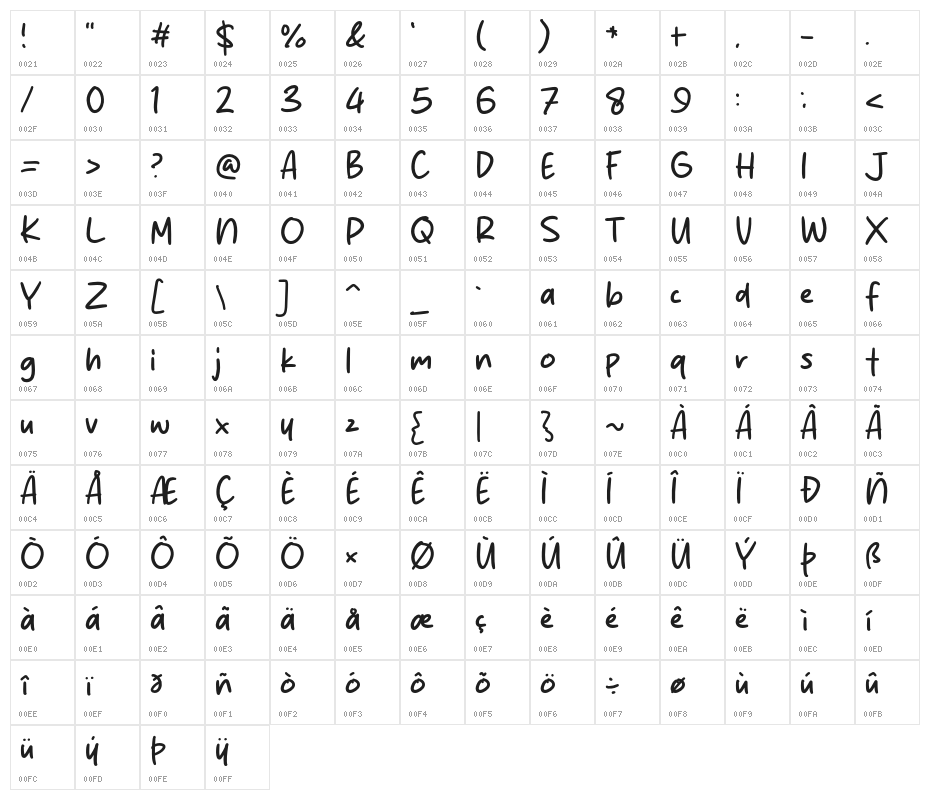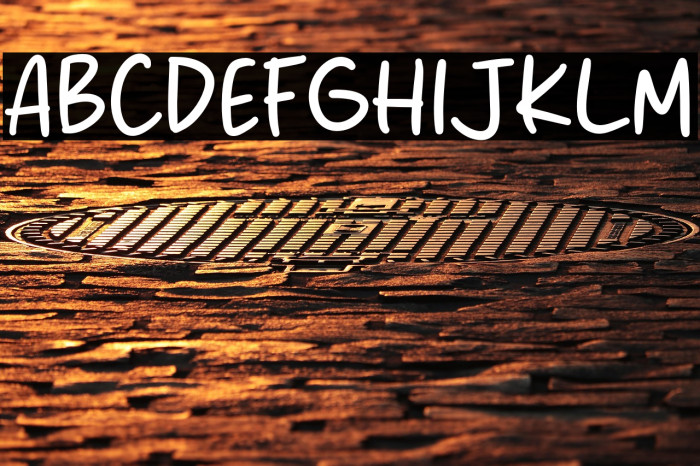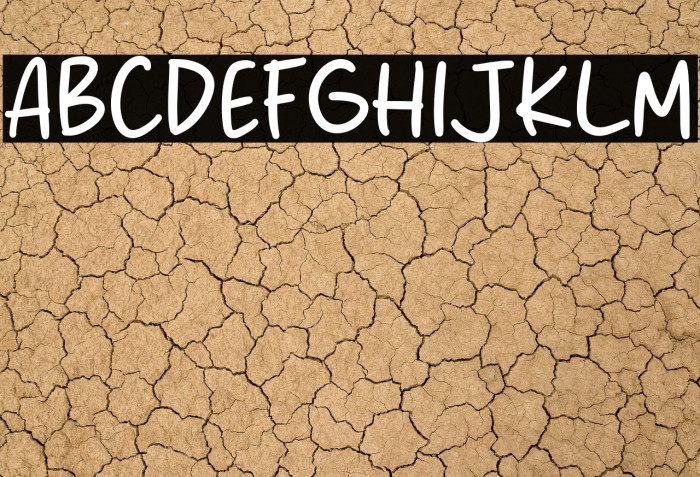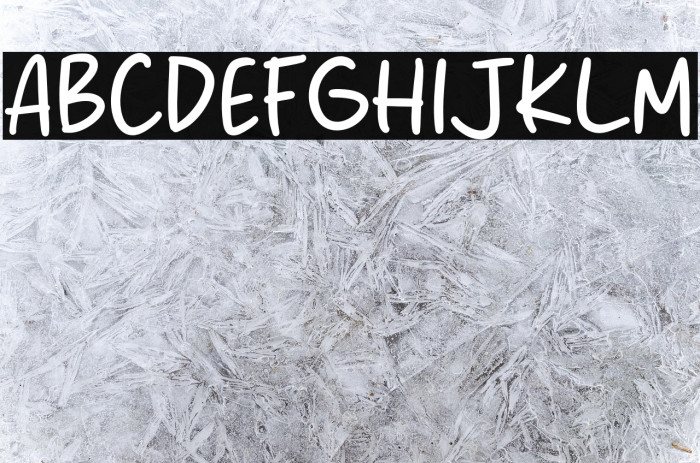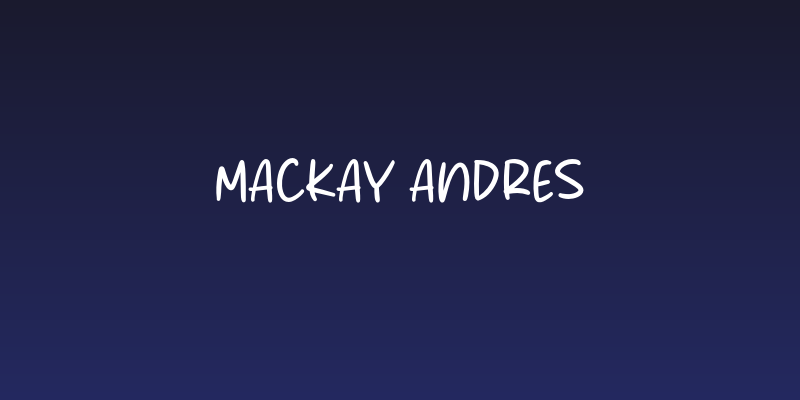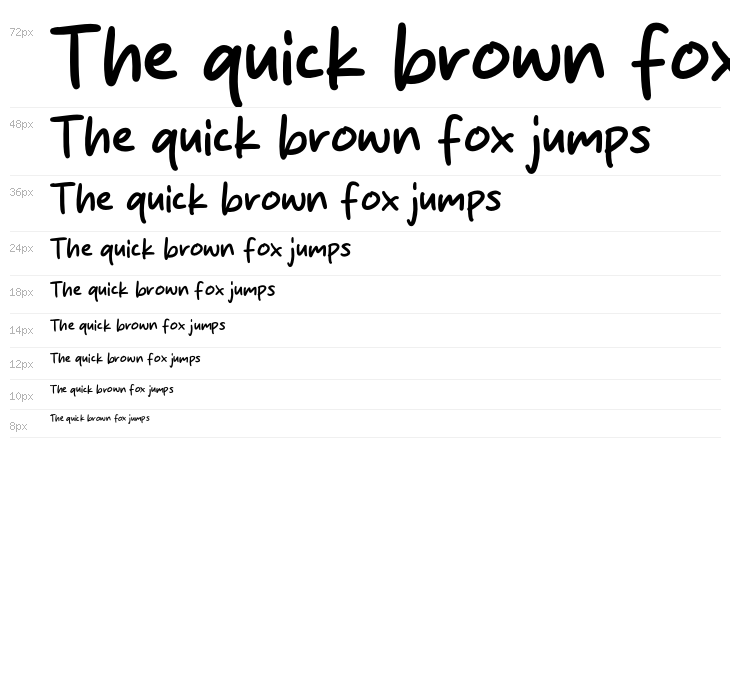
Mackay Andres Font
Mackay Andres Description
This font features a playful and casual handwritten style, characterized by its smooth and rounded strokes. The letters are slightly slanted, giving it an informal and friendly appearance. The uppercase and lowercase letters are well-balanced, with a consistent flow that enhances readability. The numerals and special characters maintain the same playful aesthetic, making it versatile for various uses. The overall design is approachable and modern, suitable for projects that require a personal touch.
| Use Case | Headlines, Informal text, Personal projects |
| Proposed Projects | Ideal for greeting cards, personal blogs, children's books, and informal branding. |